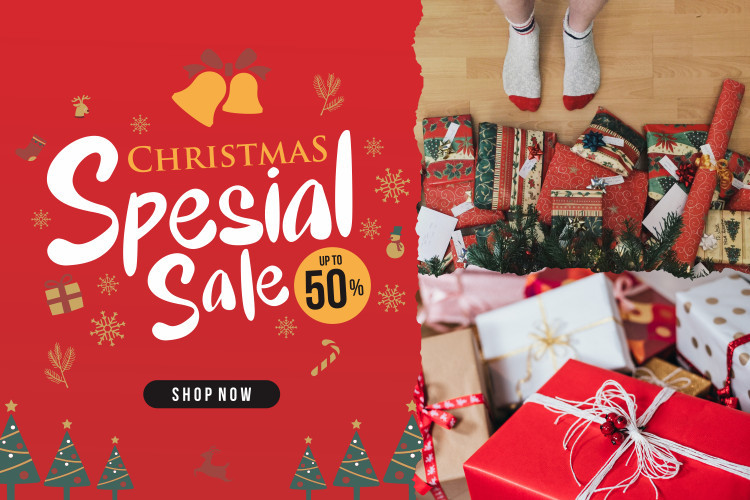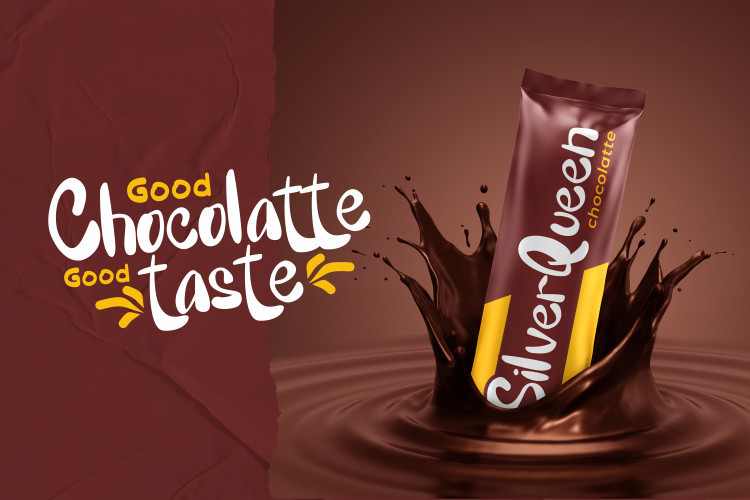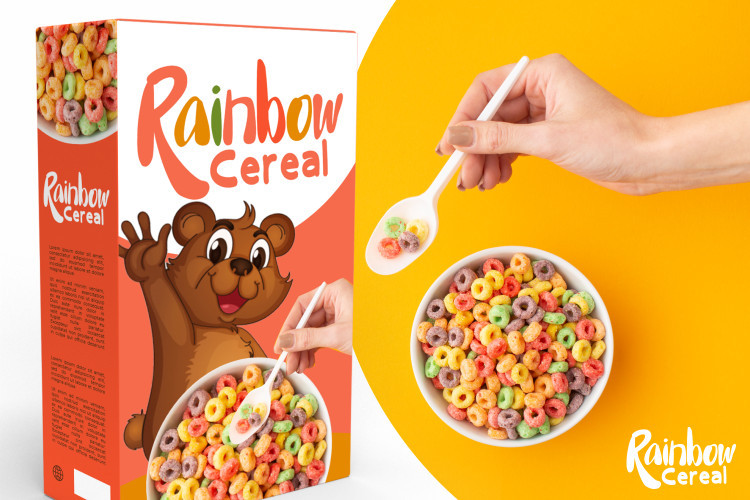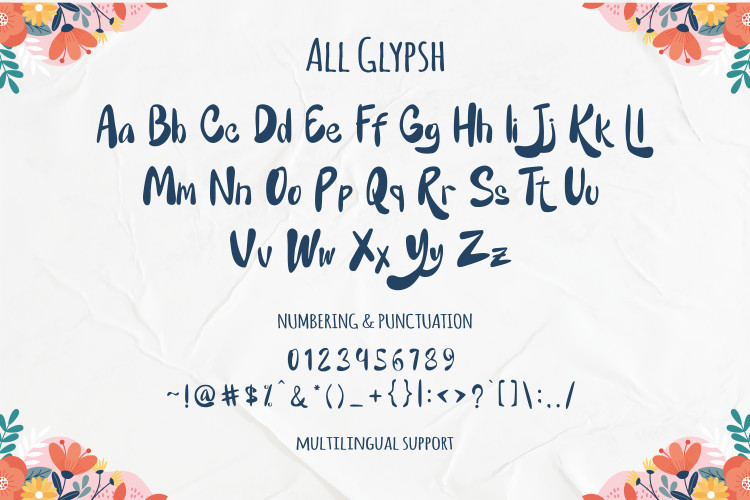
Hello Britney Script Font
This is a playful, very beautiful and unique handwritten font. This font is great for Logo, typo design, headline book with unique character also for logo product like milk, chocolate, cereal, and many more